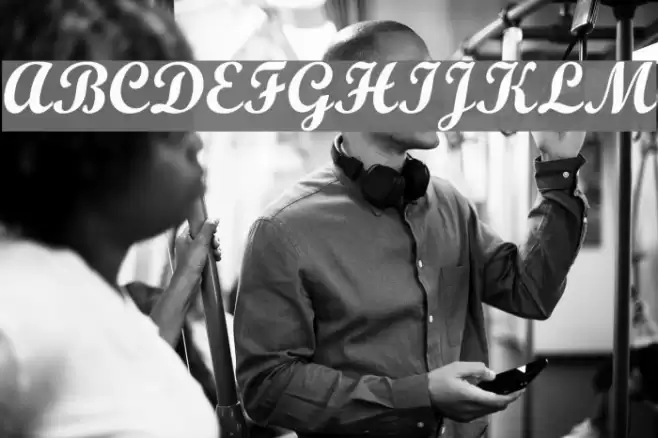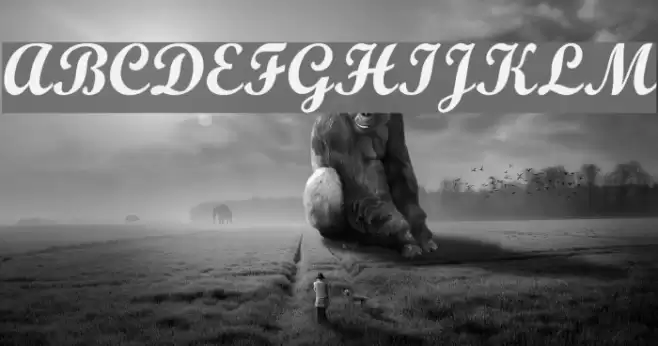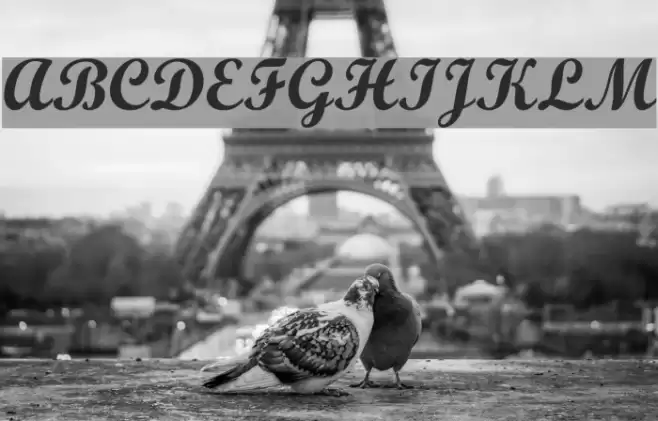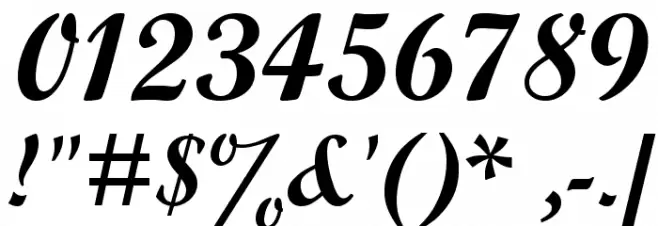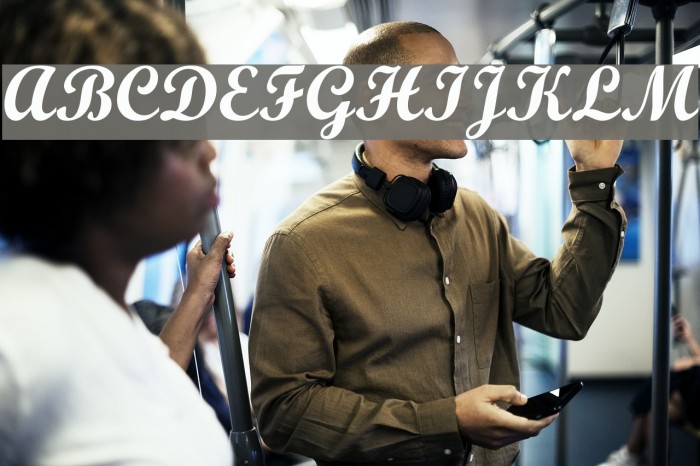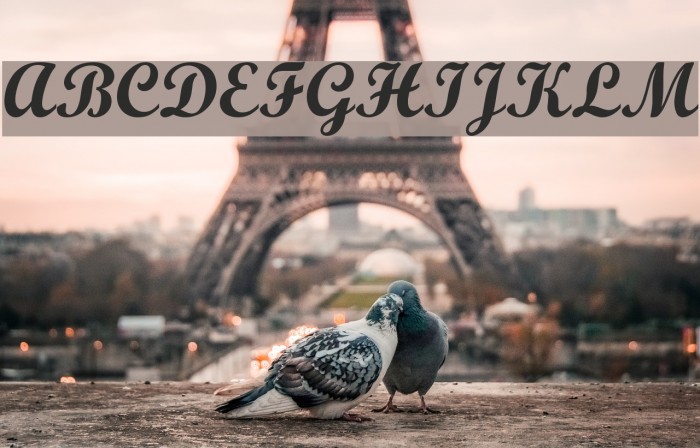
Wrexham Script Font
Wrexham Script Description
This script font exudes elegance and fluidity, characterized by its smooth, flowing curves and connected letterforms. The uppercase letters are bold and prominent, while the lowercase letters maintain a consistent flow, making it ideal for creating a sense of movement and grace. The numerals are well-proportioned and match the overall style, ensuring readability. Special characters are thoughtfully designed, maintaining the script's cohesive look. This font is perfect for projects that require a touch of sophistication and style, such as invitations, branding, and decorative purposes.
An elegant script font with smooth, flowing curves and connected letterforms from Handwritten fonts.
- Proposed Projects: Ideal for wedding invitations, elegant branding, signage, and decorative projects.
- Overall Style: Elegant
- Use Case: Headlines, Logos, Invitations